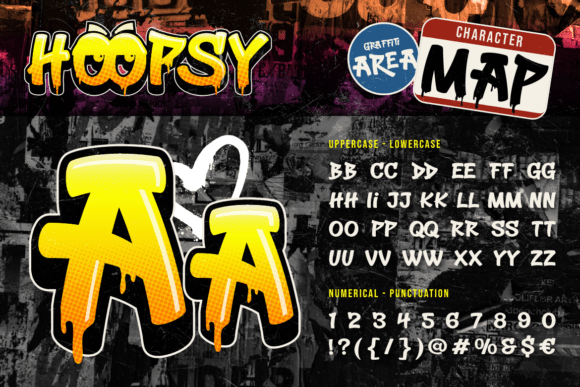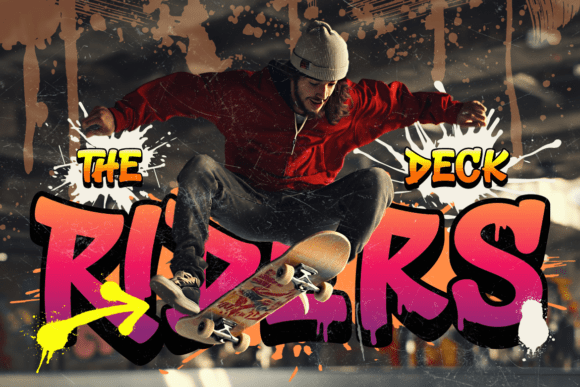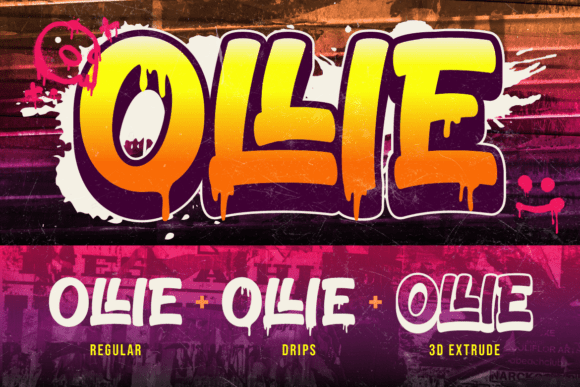
Introduction to Hoopsy Font
Imagine you’re browsing through a street art gallery, surrounded by vibrant murals and graffiti masterpieces. As you scan the walls, your eyes catch a particular piece that stands out from the rest – a bold, playful font that screams energy and rebellion. That’s the moment when you know you’ve stumbled upon something special, something that can elevate your design game to the next level. Enter the Hoopsy Font, a game-changing design resource that’s about to revolutionize the way you create eye-catching titles, posters, and streetwear designs.
For designers, having access to high-quality fonts like Hoopsy Font is a treasure trove of creative possibilities. With its transparent background and free download option, you can experiment with various design concepts without breaking the bank. Whether you’re working on a music cover, skateboard graphic, or urban-themed branding, Hoopsy Font is the perfect tool to help your text stand out and leave a lasting impression.
Key Features of Hoopsy Font
- Unique, hand-drawn style with a transparent background, allowing for easy customization and flexibility.
- Includes a comprehensive character set with a wide range of glyphs, including uppercase and lowercase letters, numbers, and punctuation marks.
- Designed to be highly versatile, suitable for use in a variety of creative projects, from branding and logos to digital art and print materials.
- High-resolution design, ideal for use in large-scale projects, such as billboards and posters.
Honest Review: Hoopsy Font
I recently had the chance to work with the Hoopsy Font, a popular design resource that offers a free download for creative projects. One of the things that immediately caught my attention was the high quality of the font, which is available in both regular and bold styles.
- ✨ The font is incredibly versatile and can be used for a wide range of design projects, from logos to typography-heavy websites.
- ✨ The transparent background option allows for seamless integration with any design element.
- ⚠️ The font is not available in as many styles as some other popular fonts, which may limit its use in certain design projects.
- ⚠️ Some users may find the font to be a bit too playful or whimsical for certain design applications.
Overall, I was impressed with the Hoopsy Font and would definitely recommend it to designers who are looking for a high-quality, free design resource. While it may not be perfect, it’s an excellent addition to any designer’s toolkit.
For optimal results, use the Hoopsy Font on a transparent background to achieve a clean and modern look. Experiment with different font sizes and styles to add visual interest to your design.
The Hoopsy Font is ideal for a variety of design projects, including logos, business cards, and social media graphics. Its high-quality design and transparent background make it a versatile resource for creative professionals.